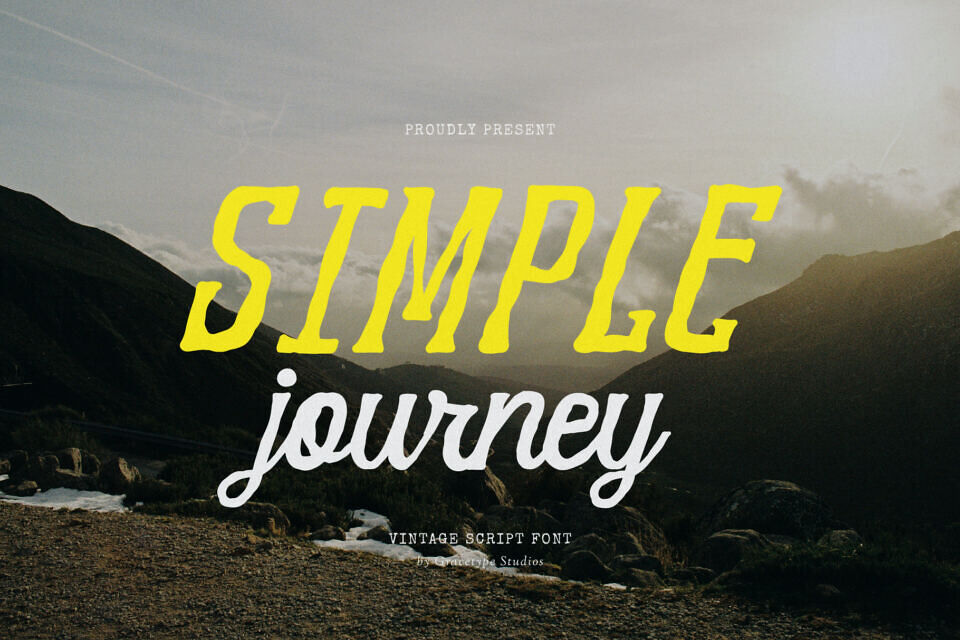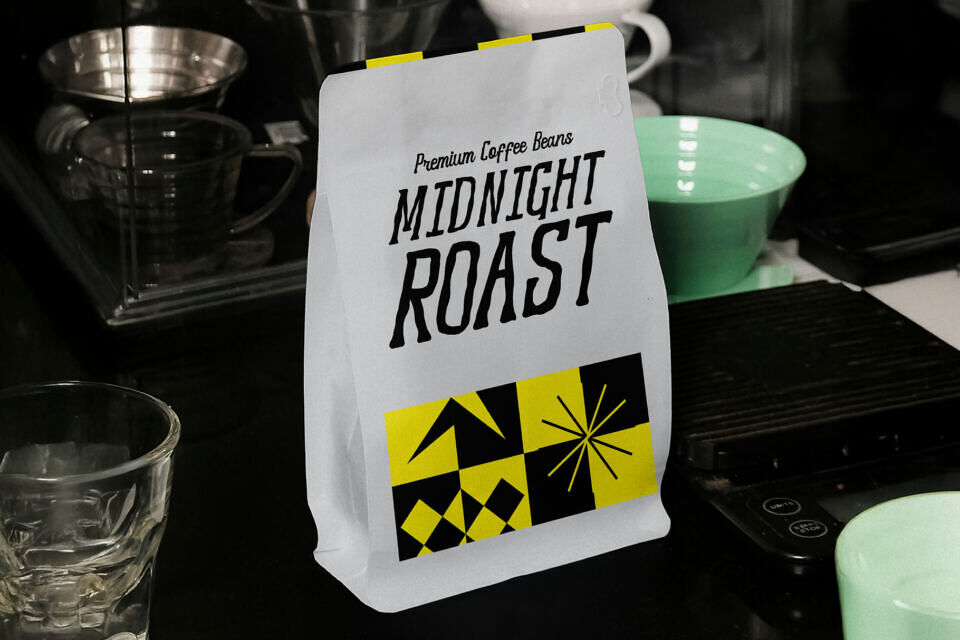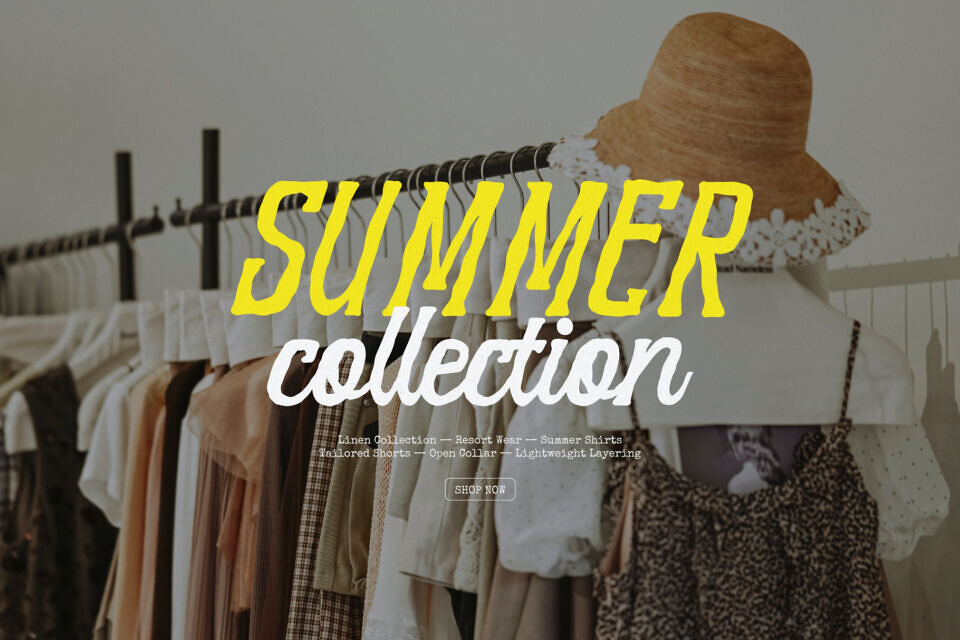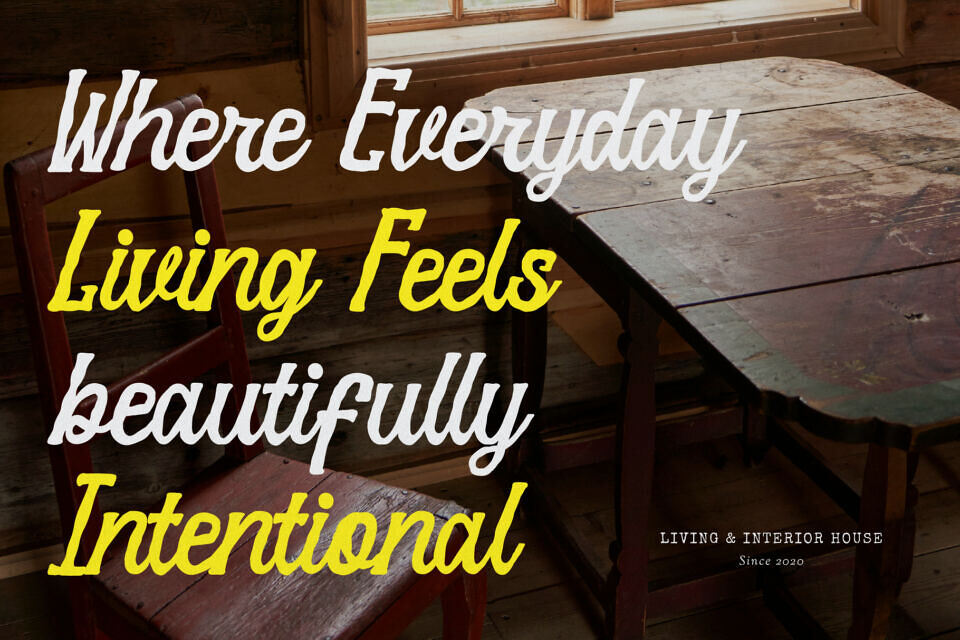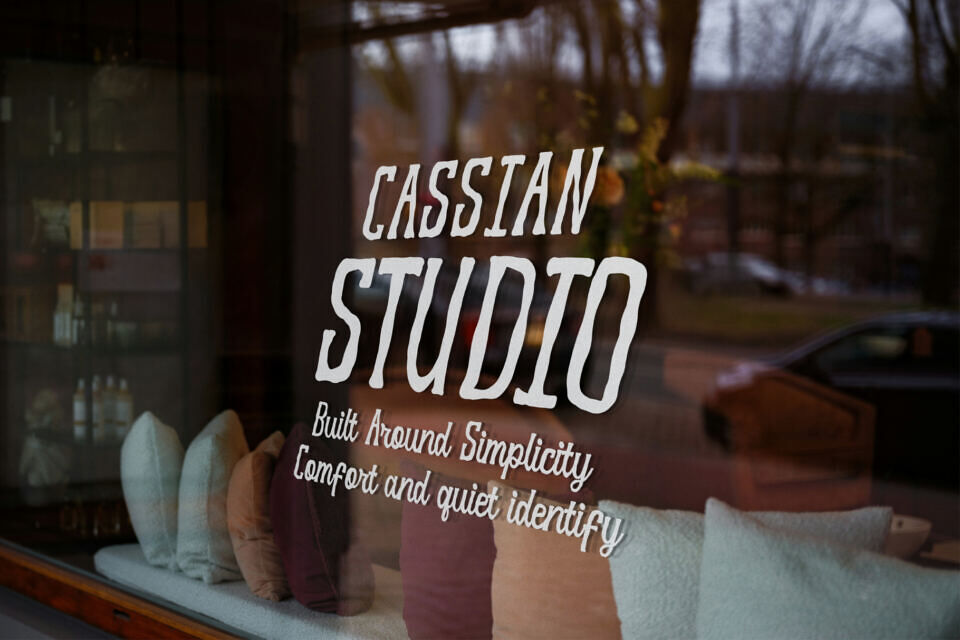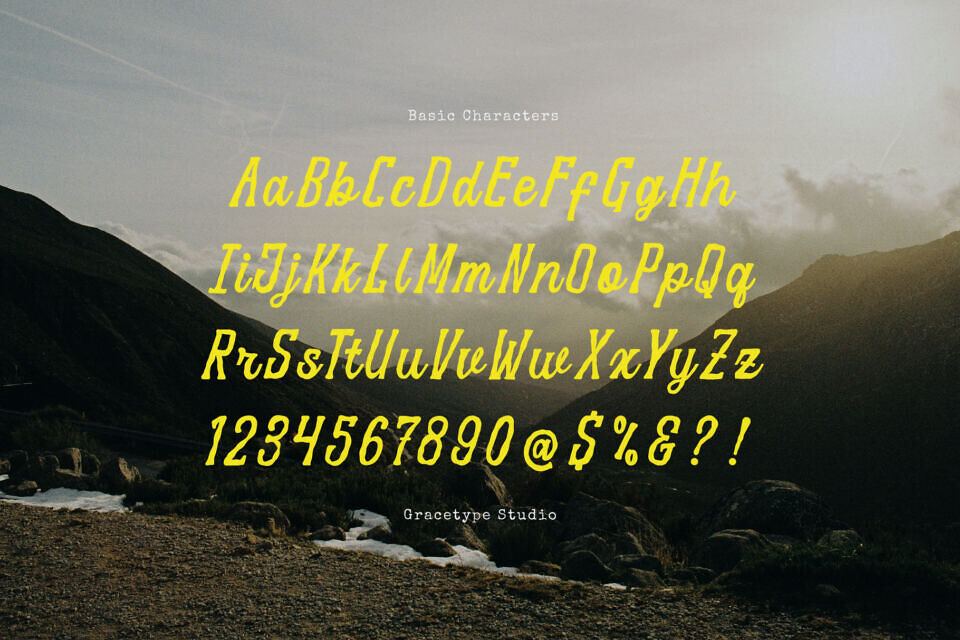
Simple Journey Font
Embark on a creative road trip back in time with Simple Journey, an expressive vintage script font. Capturing the rugged, unfiltered spirit of retro travel and outdoor exploration, this dynamic dual-style typeface collection injects layouts with instant organic energy.
The uppercase display characters feature a heavy, hand-carved block anatomy defined by erratic outlines, raw woodcut edges, and a bold forward slant. In perfect contrast, the lower-case tracking smoothly transitions into a fluid, monoline brush script that rolls gracefully past the baseline.